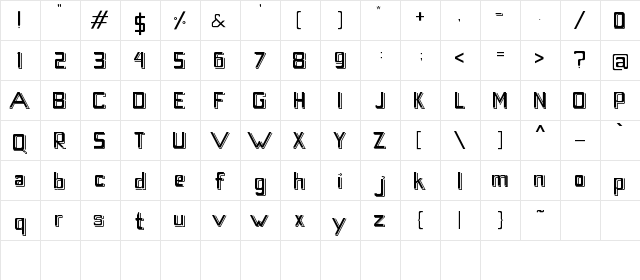
Graphics Sans Regular
Design Context for Graphics Sans Typeface
Graphics Sans is a composed and adaptable typeface that performs quietly and consistently across a wide range of design contexts.
Pro Tip: Use Graphics Sans in both headline and body roles to test its range before committing to a single application.